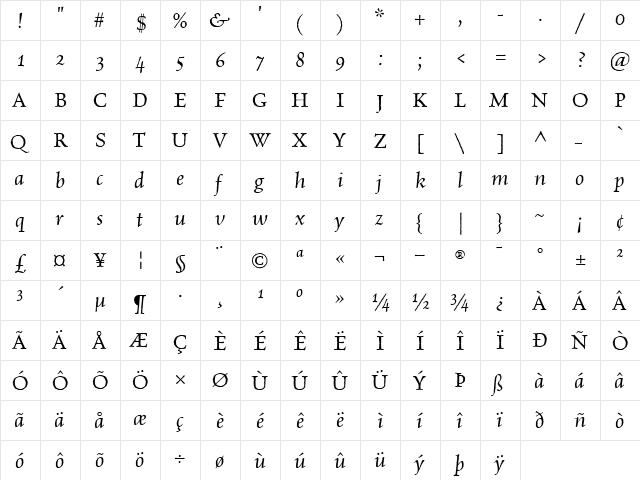
Design Context for CelestiaAntiqua Typeface
CelestiaAntiqua takes a measured approach to typography — its balanced proportions and neutral character make it a reliable workhorse for both digital and print work. The dynamic lean of this cut emphasises speed and emphasis in any layout.
Pro Tip: Try CelestiaAntiqua for annotation and caption copy alongside an upright companion — the contrast in angle creates a dynamic but ordered typographic system.